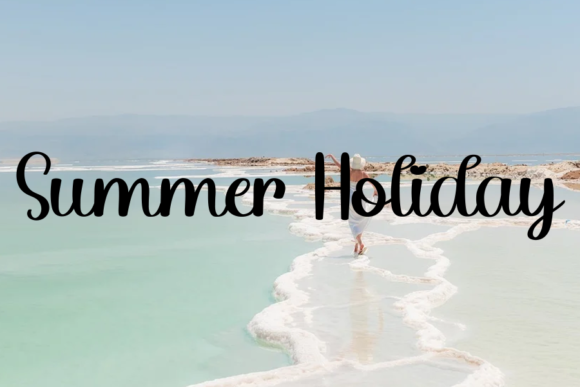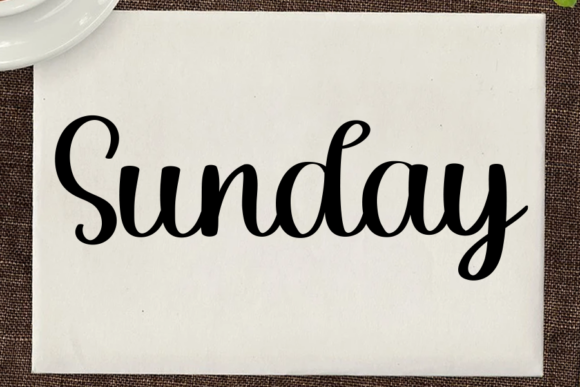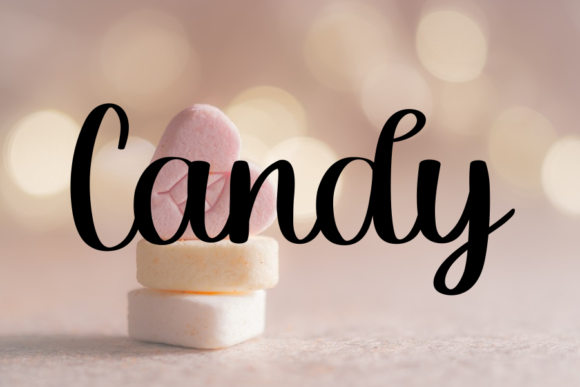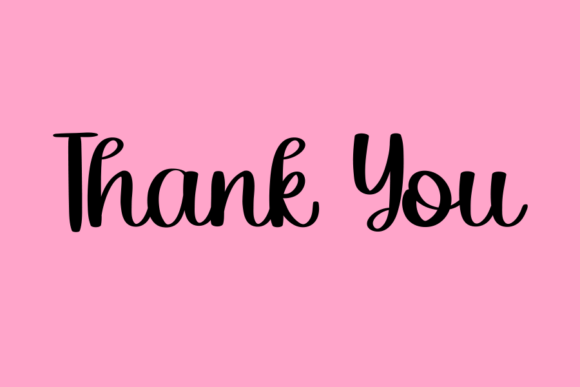
Chocolate Font
About Chocolate Font
Chocolate is a cute and simple handwritten font, that can be used for all chalkboard quotes or teaching material! Its authentic look will add a personal and realistic feel to your designs.